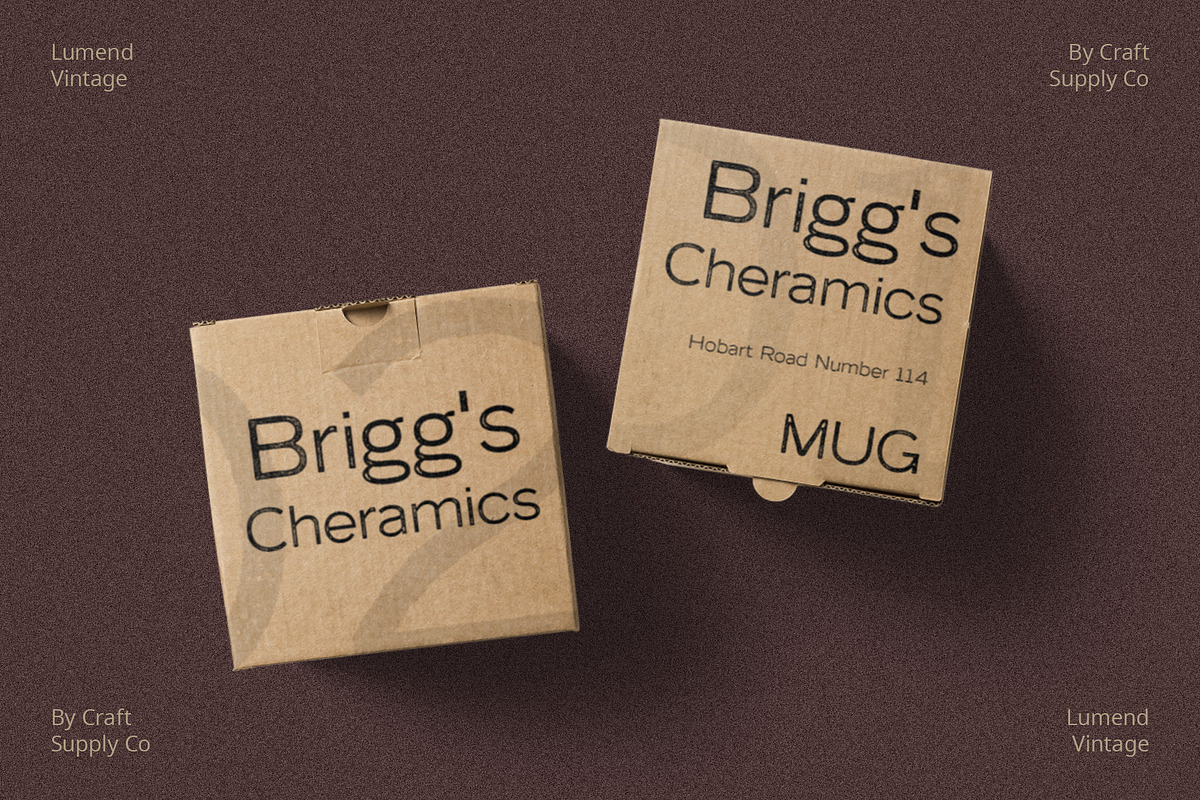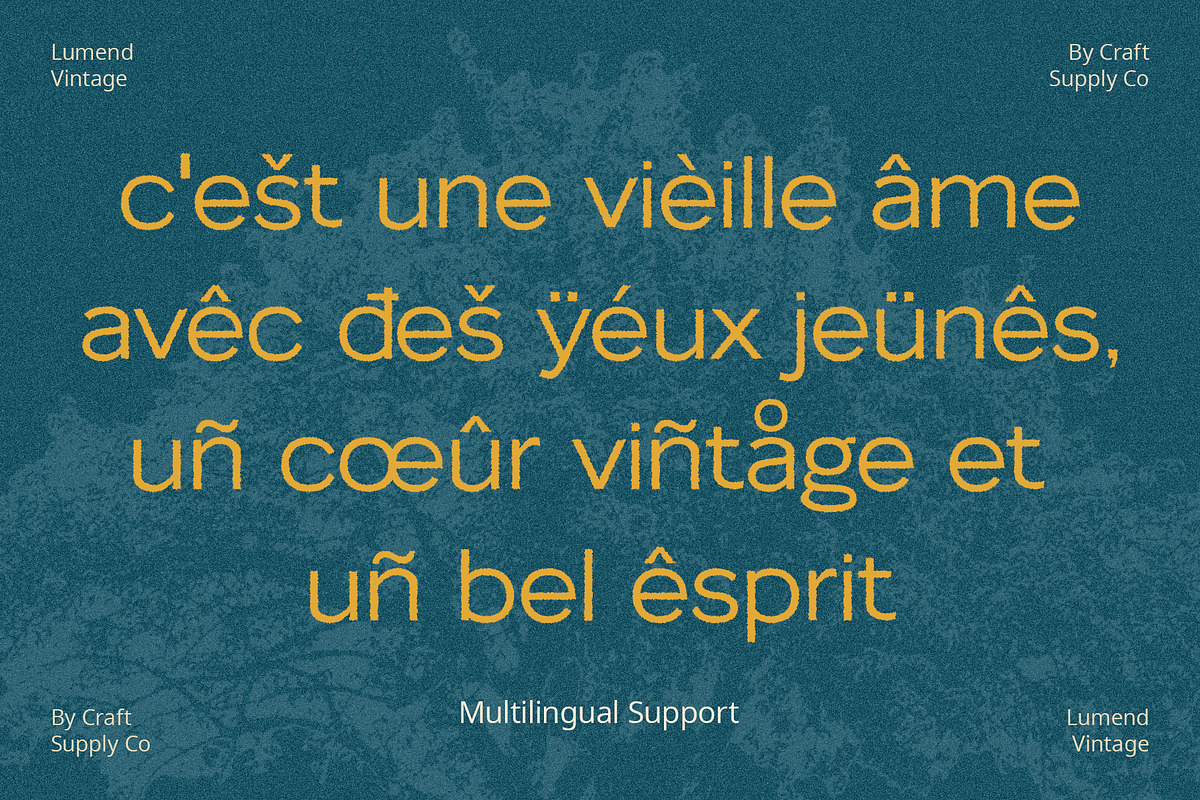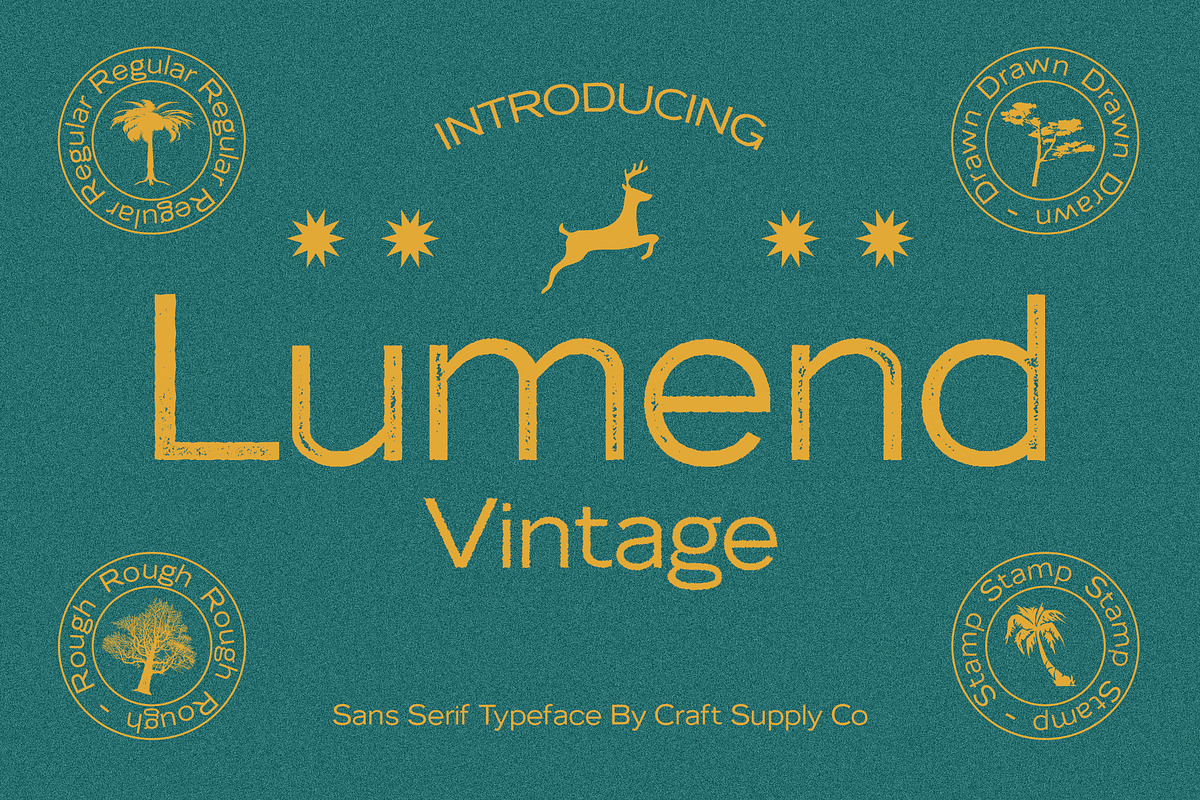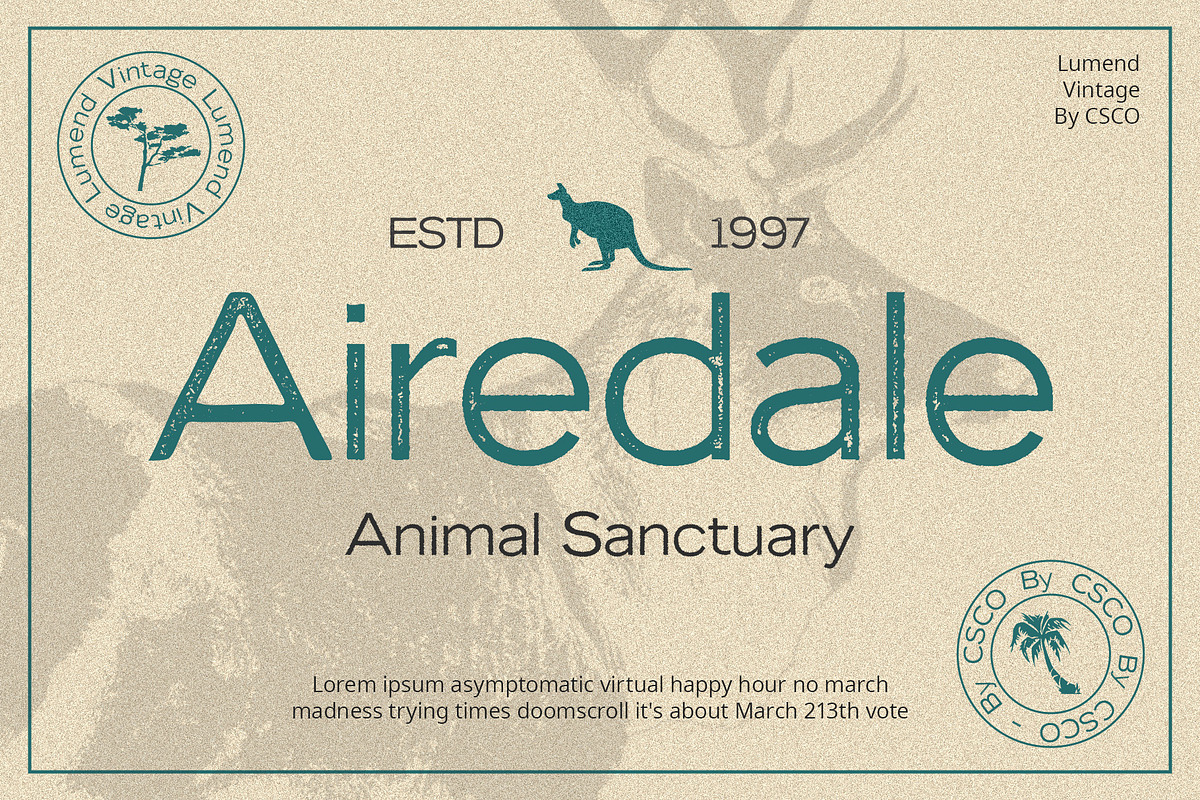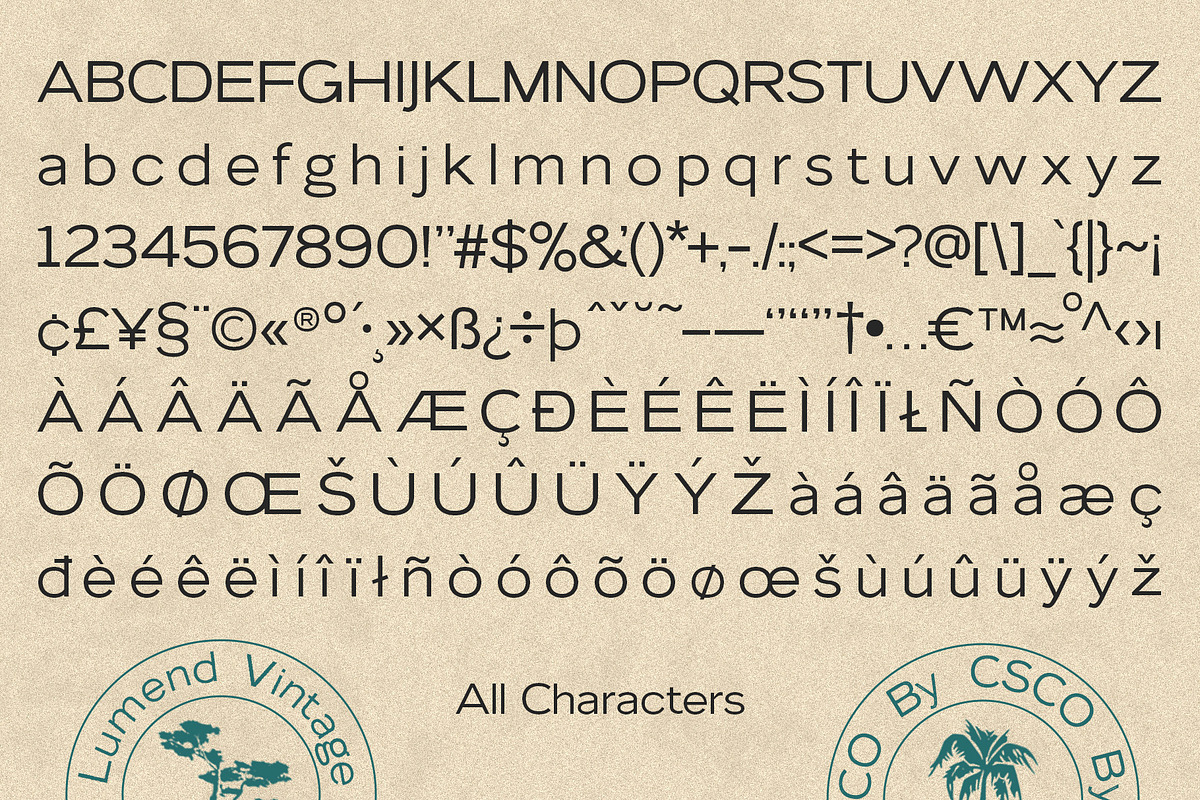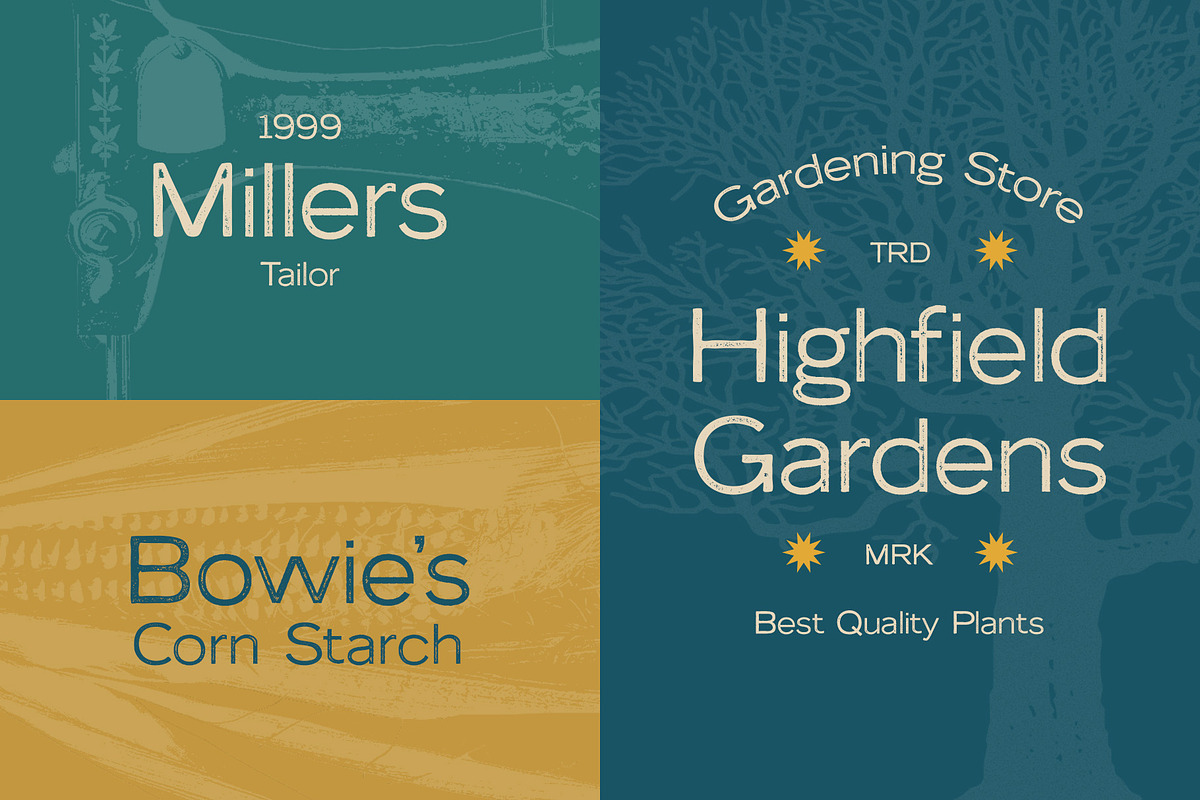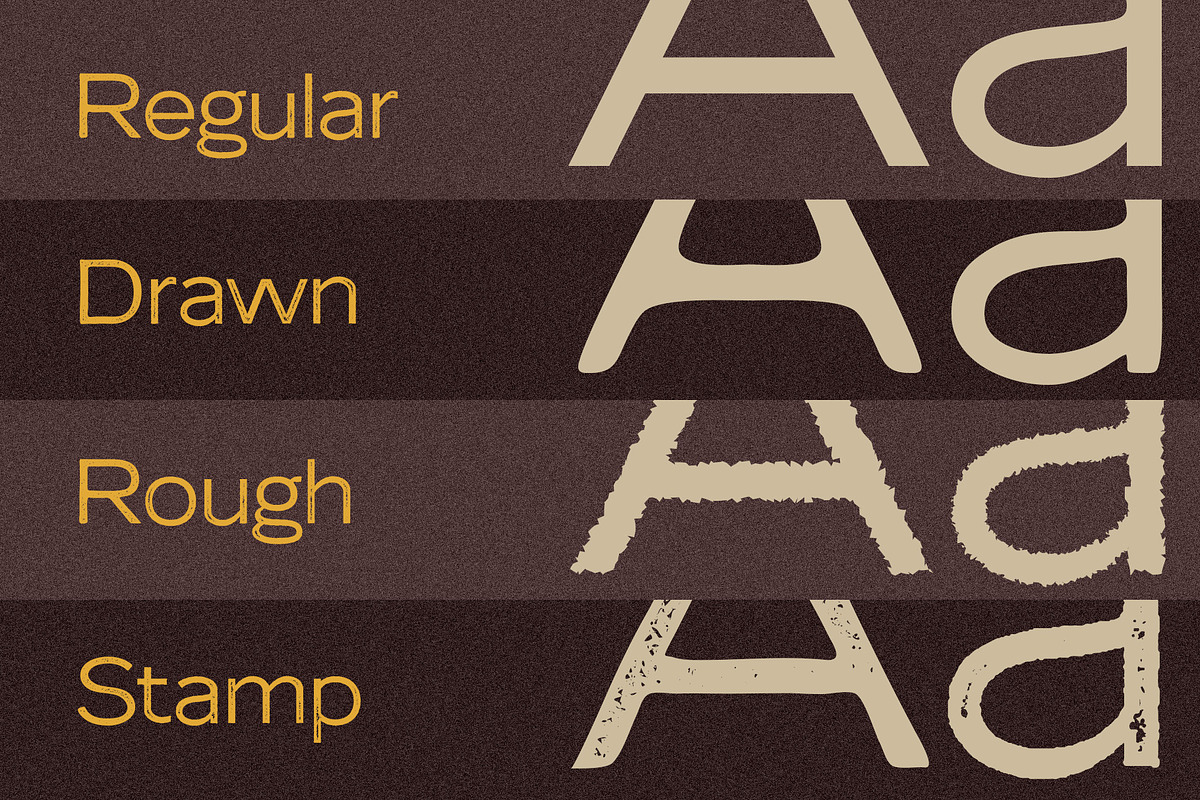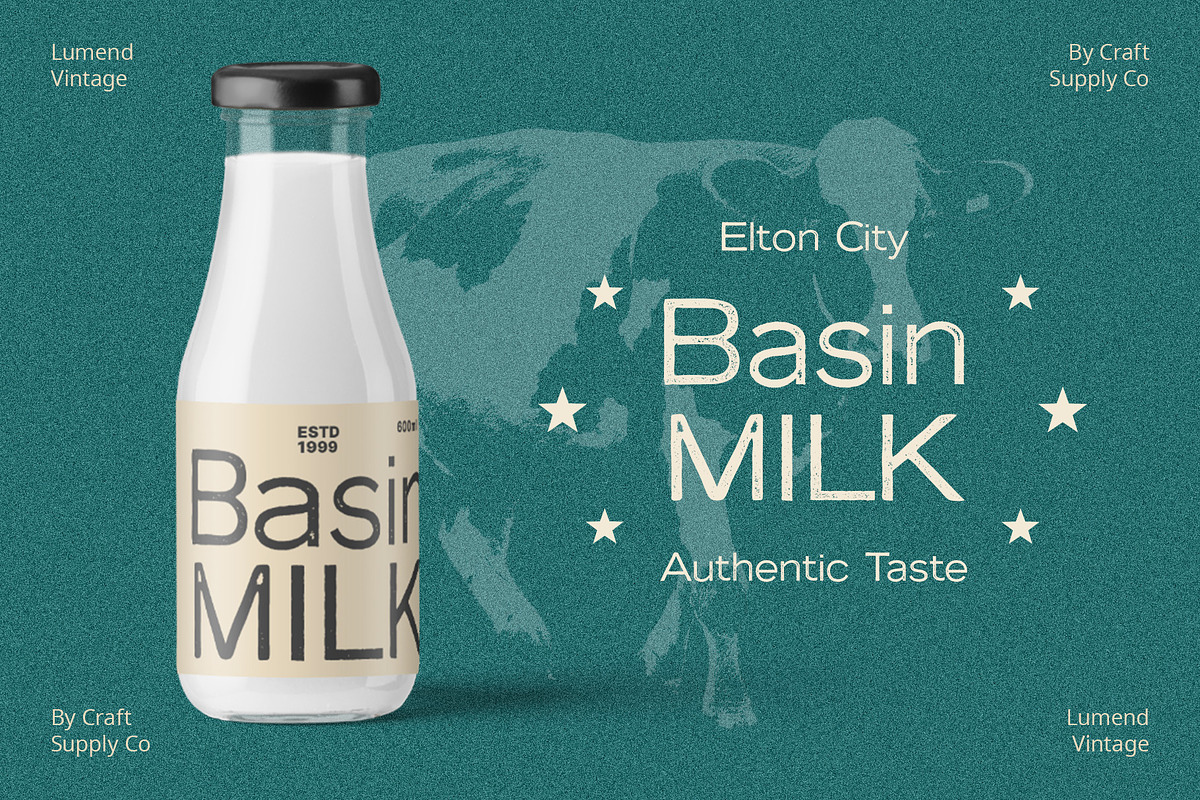
Lumend Vintage – Sans Serif Stamp
Introducing Lumend Vintage – Sans Serif Stamp Font
Looking for a font that combines a vintage stamp effect with a touch of roughness and hand-drawn charm? Look no further than Lumend Vintage – Sans Serif Stamp Font. This font is perfect for all your display needs.
Vintage Vibes
Lumend Vintage captures the essence of a bygone era with its vintage stamp effect. It exudes a sense of nostalgia, making it ideal for projects that require a classic touch.
Rustic Appeal
The rough texture of this font adds a rustic charm to your designs. It’s like a weathered sign found in an old village, giving your creations a unique character.
Hand-Drawn Delight
Lumend Vintage doesn’t aim for perfection; instead, it celebrates imperfections. Its hand-drawn style adds a delightful and human touch to your text, making it feel personalized and friendly.
Versatile Display
Whether it’s posters, banners, logos, or social media graphics, Lumend Vintage adapts seamlessly. It’s highly versatile and ensures that your message stands out in any design context.
In summary, Lumend Vintage – Sans Serif Stamp Font is your go-to choice for achieving vintage, rustic, and hand-drawn effects in your display projects. Its versatility, nostalgic charm, and unique texture make it a must-have for designers and creators of all kinds. Try Lumend Vintage today and elevate your designs with a touch of vintage elegance.
- Lumend Regular
- Lumend Drawn
- Lumend Rough
- Lumend Stamp